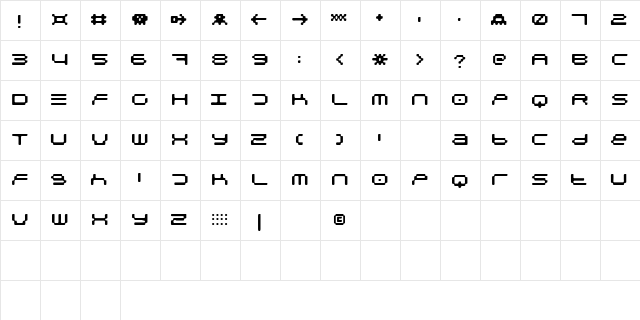
PixelpackRegular Regular
Design Context for PixelpackRegular Typeface
PixelpackRegular is rooted in pixel-grid construction, making it a natural fit for game UI, retro computing aesthetics, and digital nostalgia projects.
Well-suited to indie game interfaces, retro computing aesthetics, and pixel art-adjacent design work.
Pro Tip: Use PixelpackRegular at sizes that align with its pixel grid for the sharpest rendering — scaling to non-integer multiples can introduce unwanted blur.